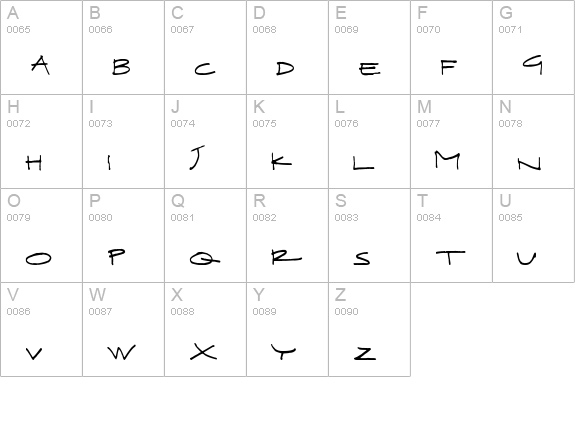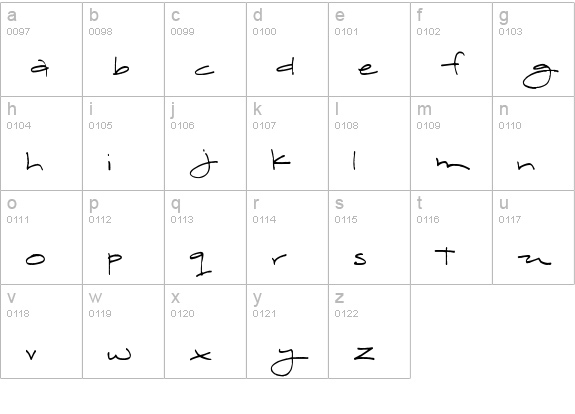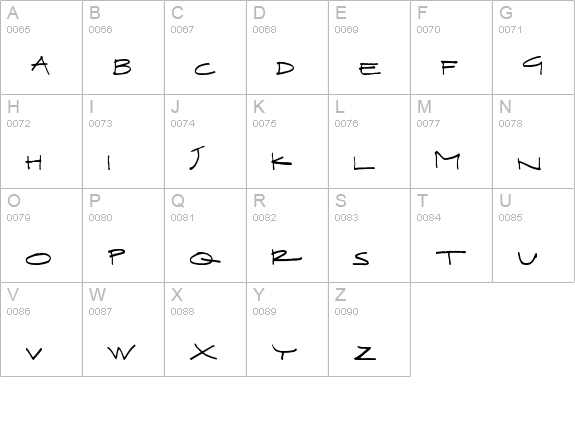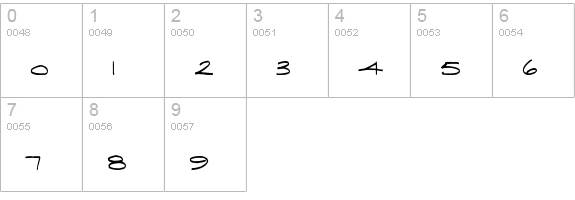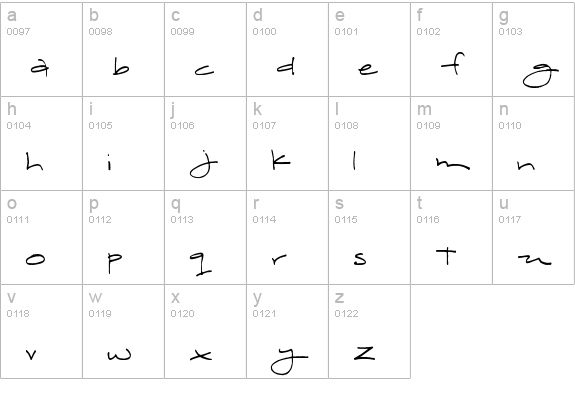
Hobbes Font Details
Hobbes font is a visually striking typeface that exudes elegance and sophistication. With its clean lines and balanced proportions, Hobbes font is perfect for a wide range of design projects, from branding to editorial design. The timeless appeal of this font makes it a versatile choice for both print and digital applications. What's even better? Hobbes font is available for free download at FontsMarket.com, making it easily accessible for designers looking to add a touch of class to their work. Don't miss out on the opportunity to enhance your designs with this stunning font that will surely make a lasting impression. Download Hobbes font today and elevate your design projects to the next level.